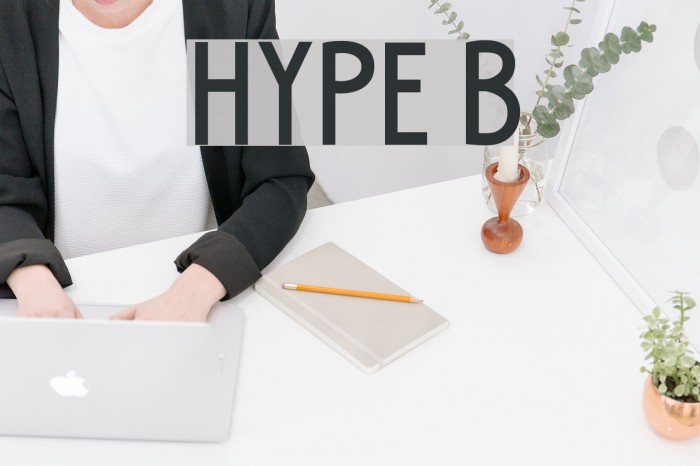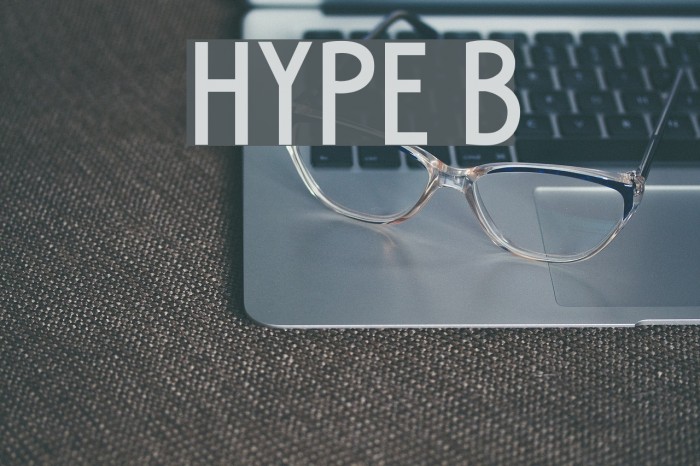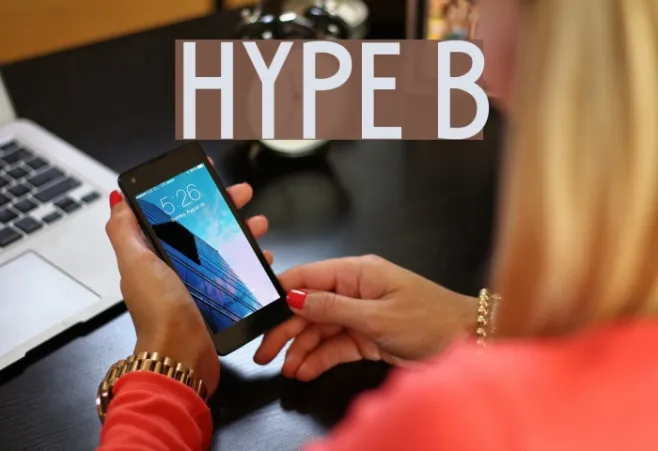
HYPE Bold Font
This font features a bold and assertive sans-serif style, characterized by clean lines and a modern aesthetic. The uppercase letters are uniform in height, providing a consistent and structured appearance. The numerals are clear and easily distinguishable, making them suitable for various applications. The special characters are well-integrated, maintaining the overall boldness and clarity of the font. Its design is straightforward yet impactful, making it ideal for attention-grabbing headlines and titles.
A bold, modern sans-serif font with clean lines and a structured appearance.
- Proposed Projects: Ideal for branding, advertising, headlines, posters, and digital media where a strong visual impact is needed.